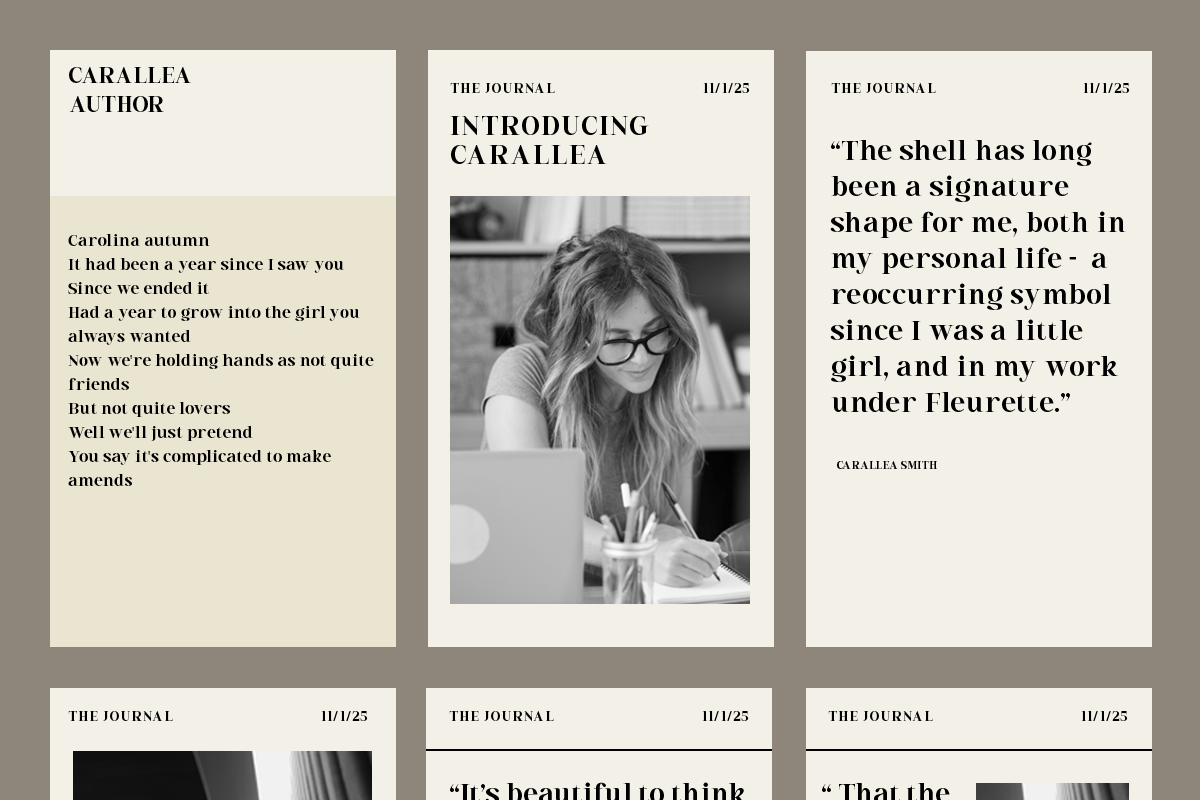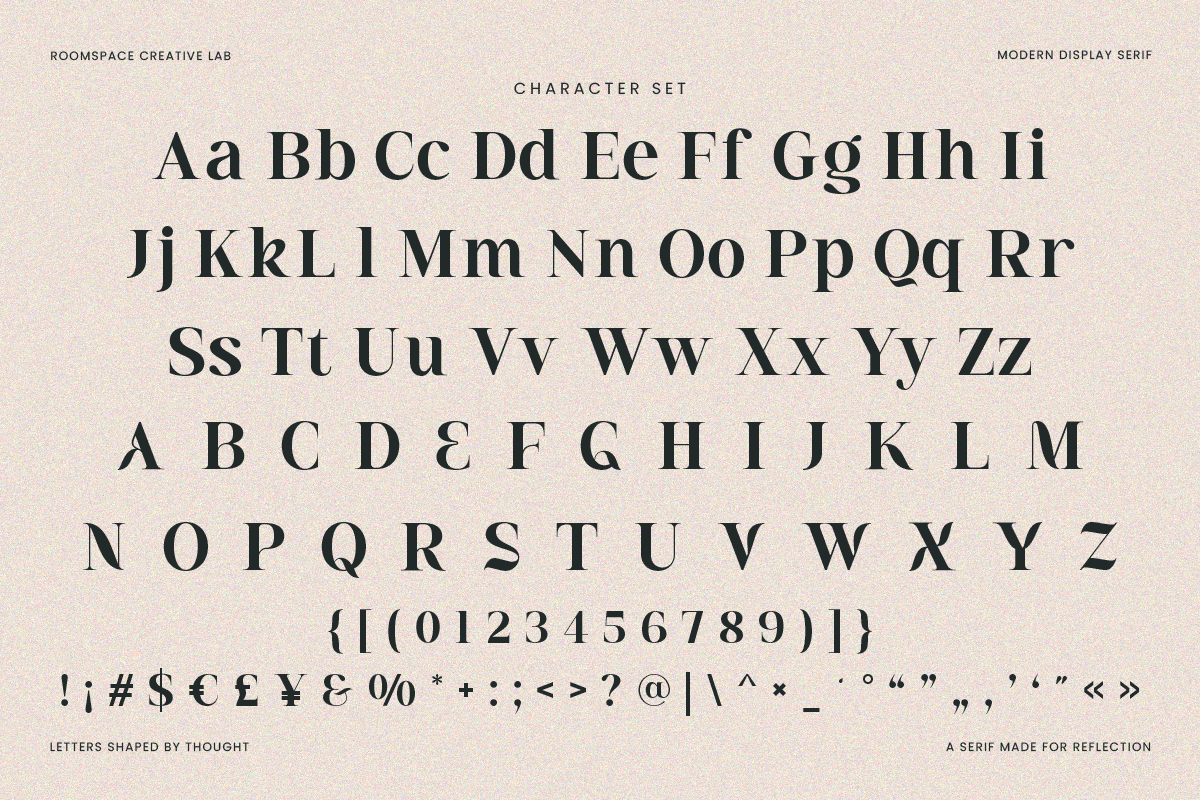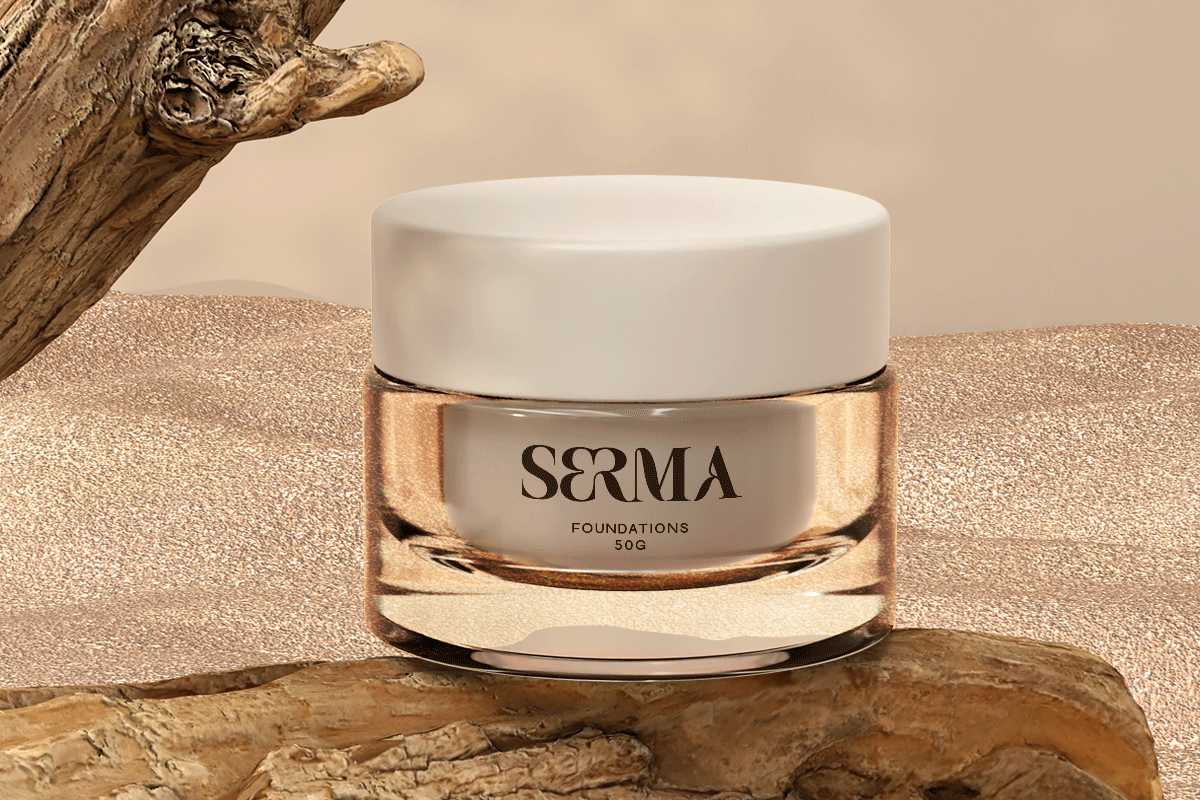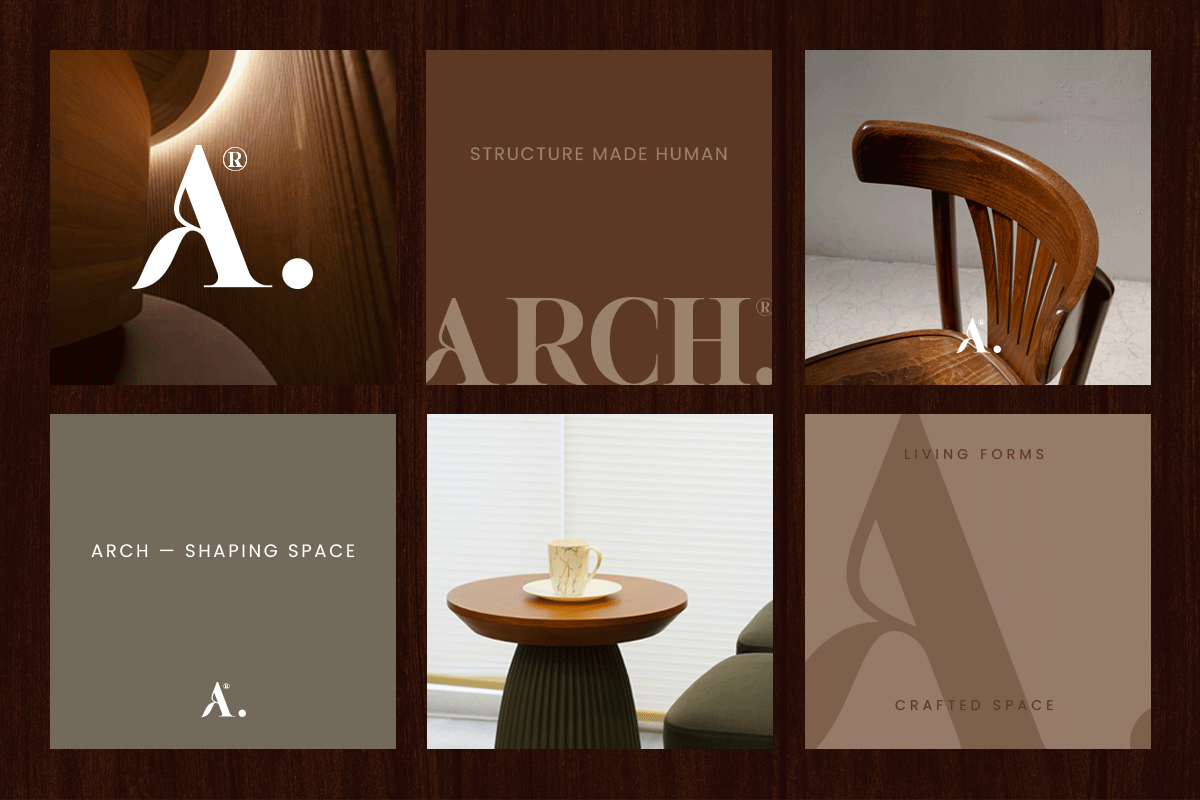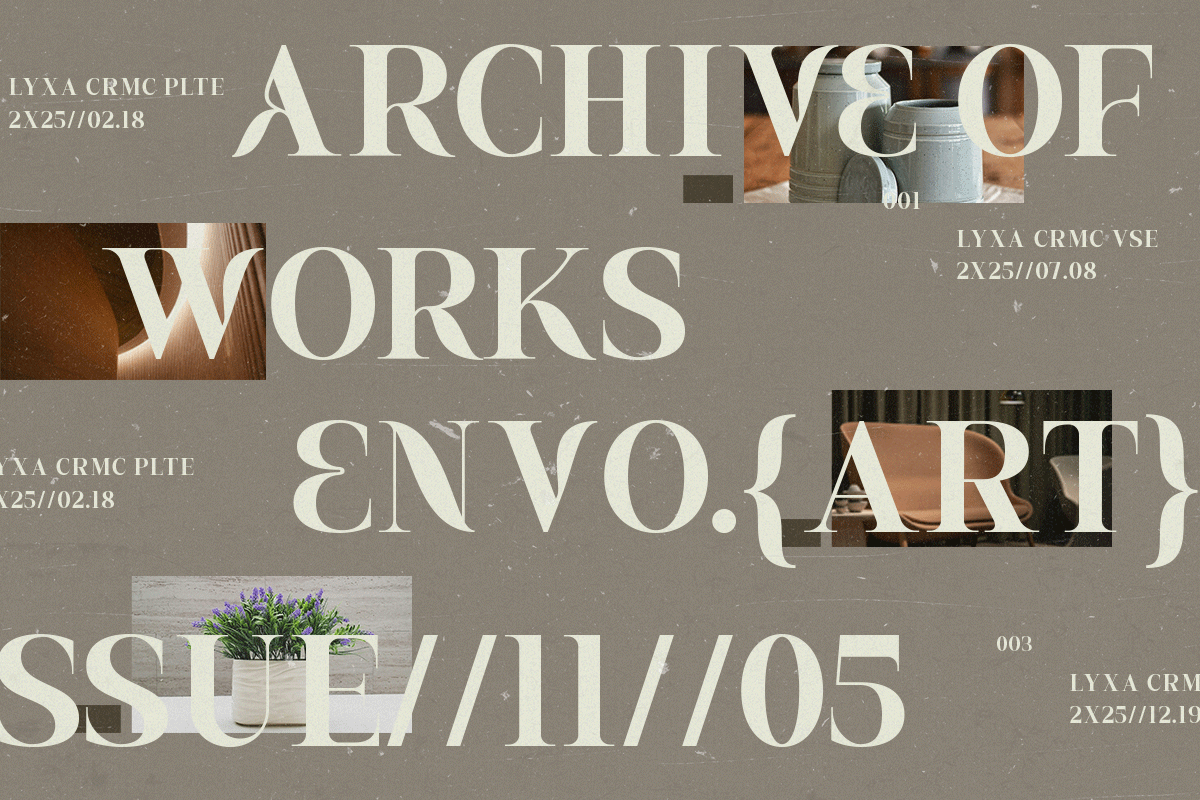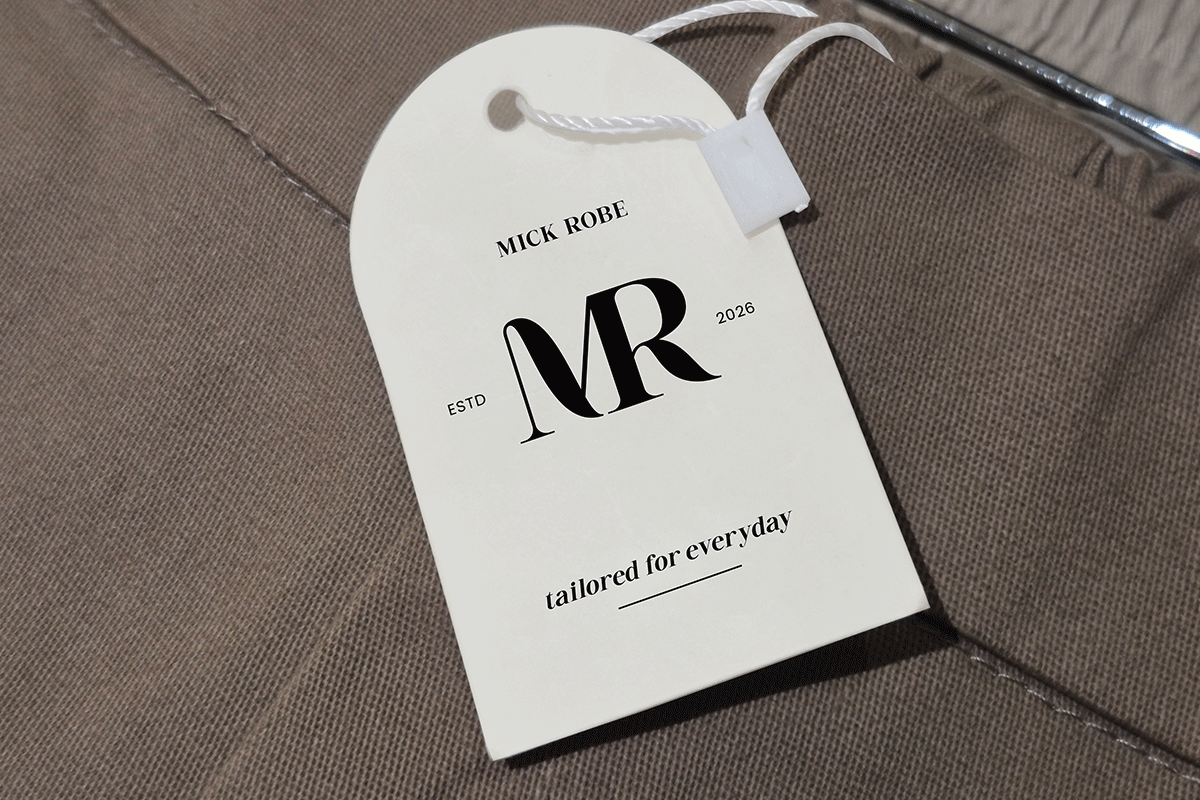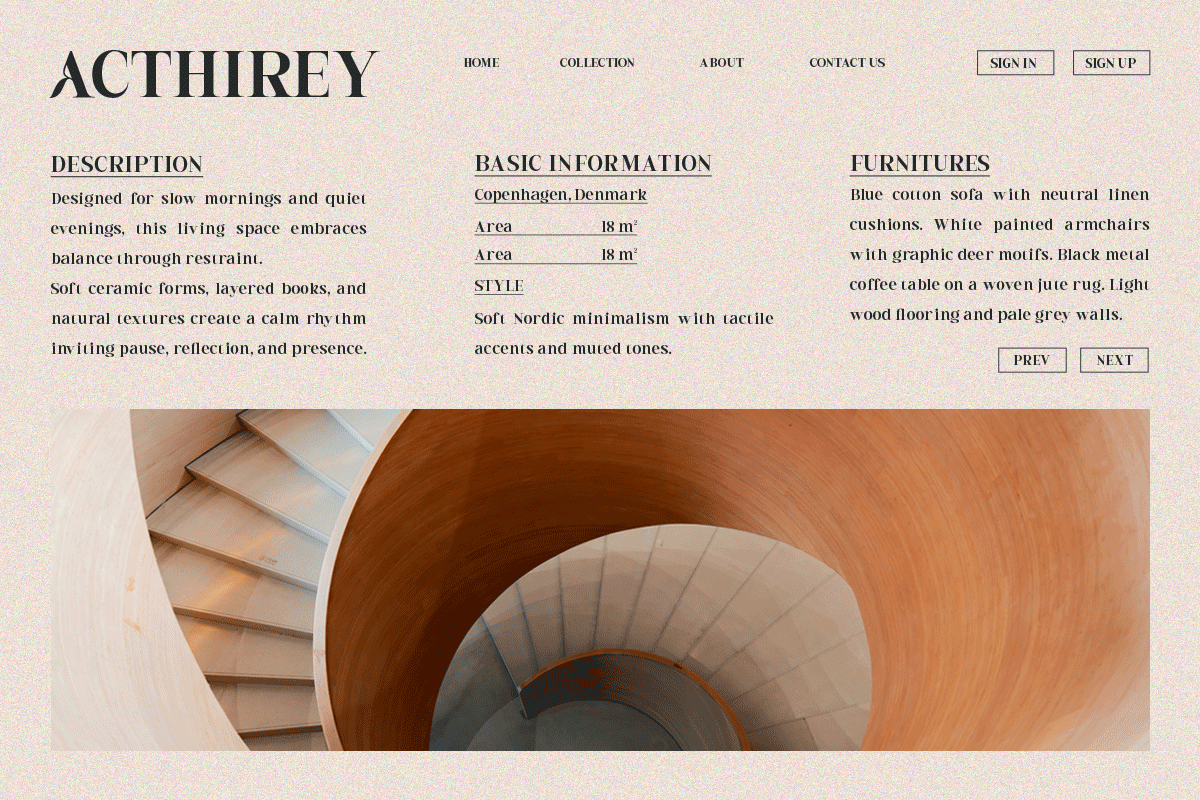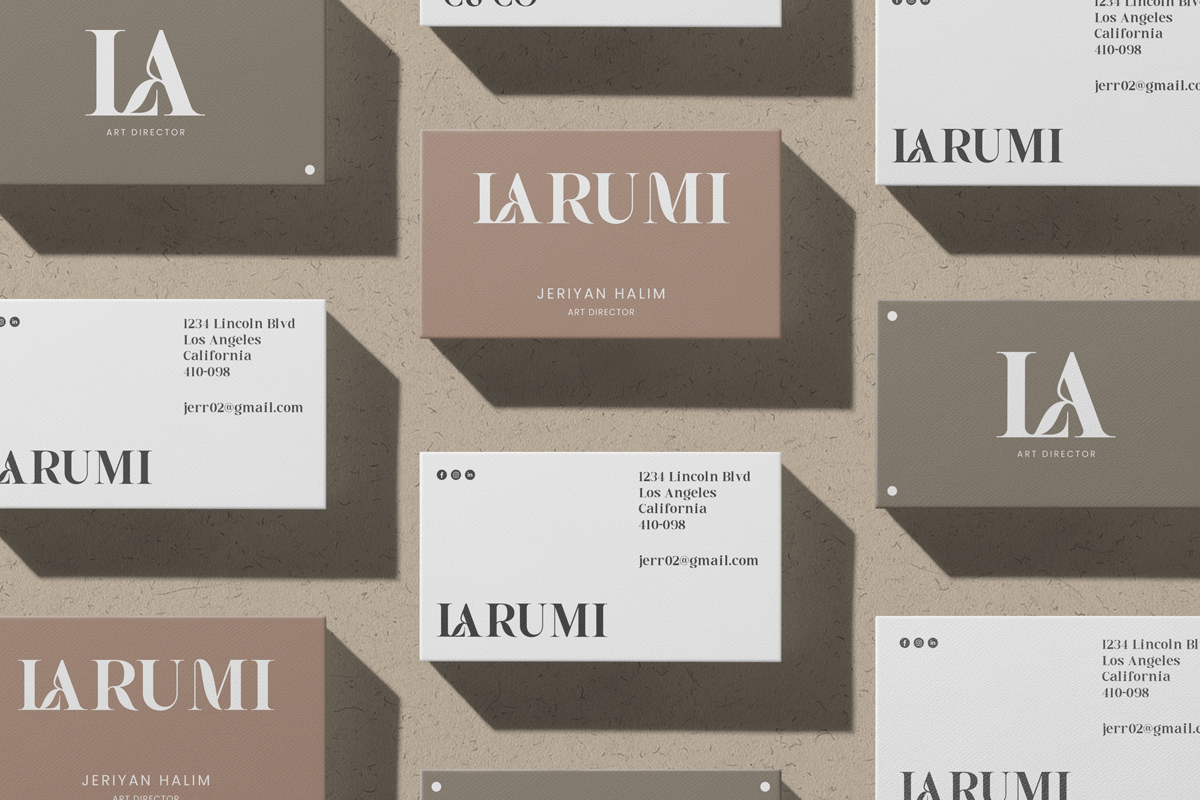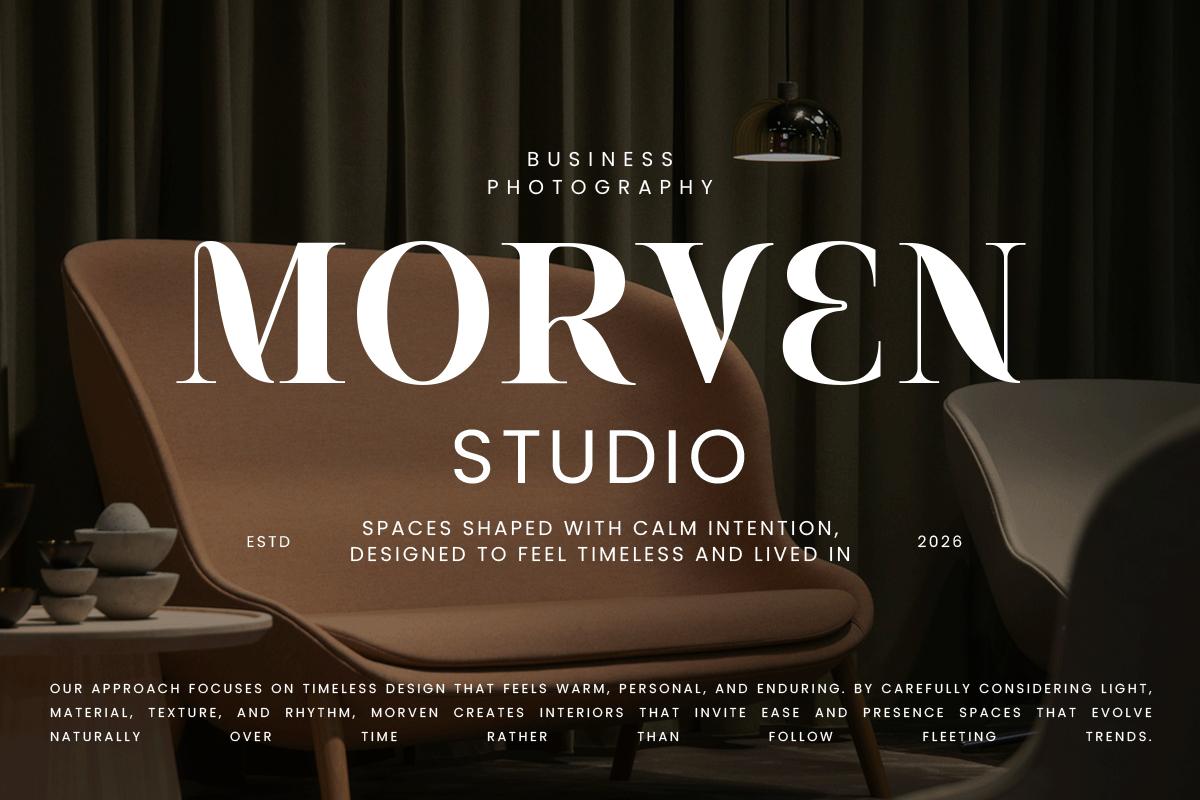
Acthirey – A Modern Display Serif
Acthirey is a modern display serif font designed with a literary soul and editorial precision. Its elegant proportions, expressive curves, and confident contrast make it ideal for high-end branding, magazines, book covers, and refined visual identities. Balancing classic serif influence with contemporary clarity, Acthirey delivers a timeless aesthetic that feels thoughtful, cultured, and visually strong across both print and digital use.
- Modern display serif design
- Elegant contrast and refined details
- Optimized spacing and readability
Perfect For : Editorial design, branding systems, magazines, fashion brands, luxury logos, book covers, posters, and premium visual identities.